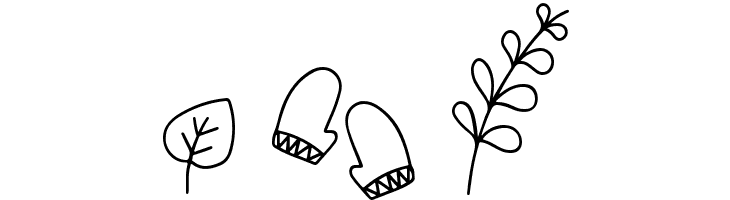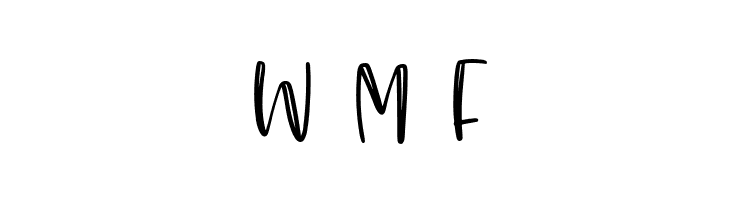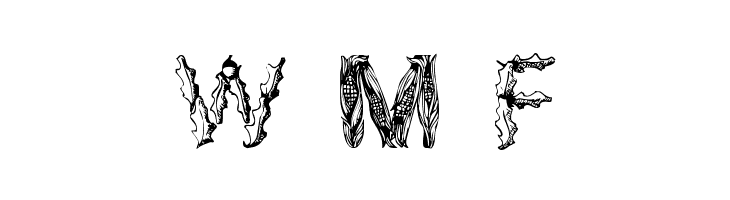
A bold, modern font with a mix of solid and striped geometric patterns.
An ornate, decorative font with intricate patterns reminiscent of medieval manuscripts.
A decorative font with leaf embellishments, offering a whimsical and organic style.
Rounded, playful sans-serif with uniform strokes and friendly shapes.
A decorative font with intricate floral and geometric patterns.
A playful decorative dingbat set with varied graphic elements and comic-style word art.
A bold, decorative serif font with intricate interior patterns.
A whimsical, spider web-themed decorative font with bold, angular strokes.
An ornate, decorative font with intricate swirls and flourishes, perfect for elegant designs.
An ornate, decorative font with intricate frame-like designs around each character.
An ornate, decorative font with intricate floral embellishments.
Ornate stencil-style decorative glyphs with bold, intricate designs.
A bold, decorative serif font with high contrast and tight spacing.
A bold, decorative font with a retro-futuristic style and geometric elements.
A bold, circular-enclosed font ideal for impactful designs.
A geometric, Art Deco-inspired font with sharp angles and elegant curves.
A geometric Art Deco font with sharp angles and elegant curves.
A geometric Art Deco font with elegant, narrow characters and unique angular cuts.
A geometric and decorative font with clean lines and modern cutouts.
A modern, geometric font with playful rounded terminals and consistent stroke width.
A decorative and abstract font with geometric and artistic elements.
A bold, distressed font with a rugged, aged appearance.
A playful, textured font composed of small, rounded shapes.
A playful, decorative font with floral patterns inside bold, hand-drawn letters.
A whimsical, decorative font with loops and dots, offering a playful and artistic style.
A playful decorative font with floral and nature-inspired elements.